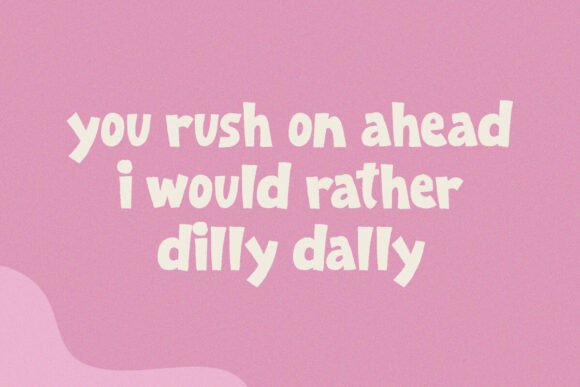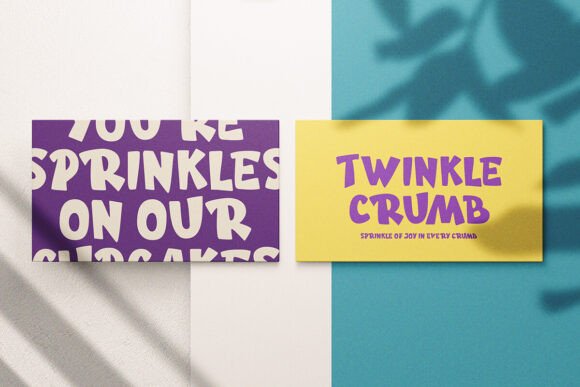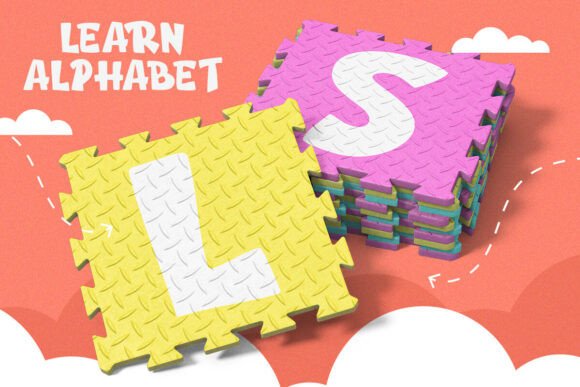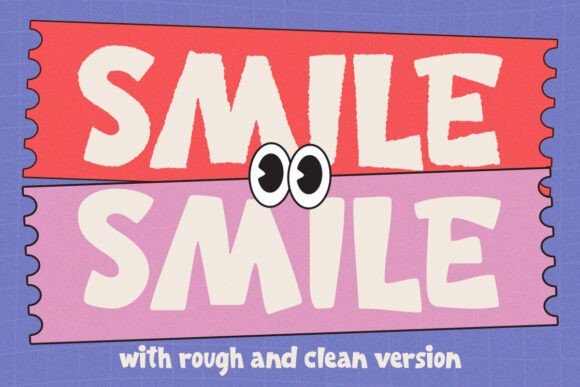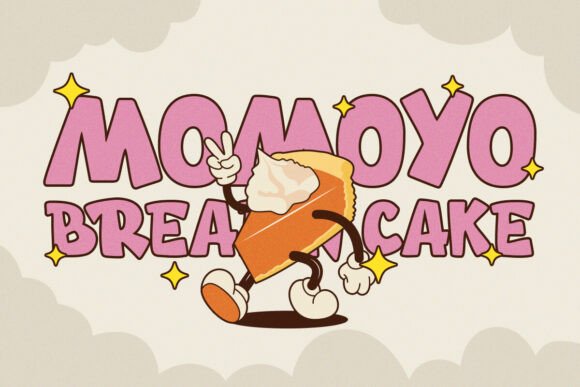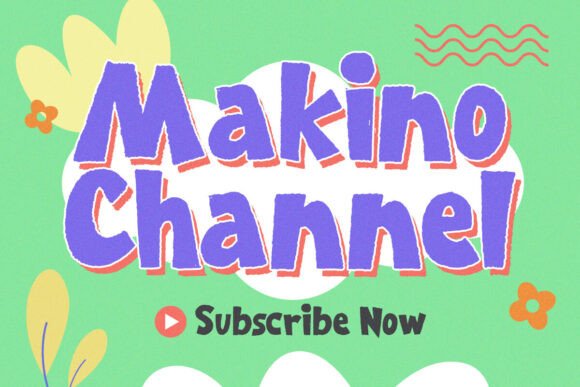
Meet Froaky Font: The Playful Ribbit-er of Design
I’ll never forget the time I was working on a whimsical children’s book illustration, and my client asked for a font that would make their story come alive. I scoured the internet, trying out font after font, but none seemed quite right. That was until I stumbled upon Froaky Font. **Ribbit!** It was love at first sight! With its bouncy, playful vibe, Froaky instantly captured the essence of the story. If you’re a designer, crafter, or creative hobbyist looking for a font that adds a dash of fun to your projects, you’re in the right place!
A Personal Review: What I Love About Froaky
So, what makes Froaky so special? Here are a few things that have won me over:
- ✨ Playful Personality: Froaky’s got a quirky charm that’s hard to resist. Its irregularities and imperfections make it feel more hand-drawn and organic.
- ✅ Versatility: Whether you’re working on kids’ illustrations, funky packaging, or social media posts, Froaky adapts to any style or theme.
- 🎨 Customization Options: With OpenType features and glyphs, you can easily swap out letters and create unique combinations to match your project’s tone.
The Not-So-Perfect: A Few Quirks
No font is perfect, and Froaky’s no exception. Here are a few things to keep in mind:
- 🤔 Legibility at Small Sizes: While Froaky shines at larger sizes, it can get a bit tricky to read at smaller sizes. Use it for headlines or titles, and consider a secondary font for body text.
- ⚠️ Limited Formality: Froaky’s playful nature means it might not be the best fit for super formal or professional projects. Stick to creative endeavors where personality is key!
The Story Behind Froaky: A Designer’s Inspiration
Ever wonder how fonts come to life? Froaky was inspired by a combination of childhood memories and a love for playful design. Imagine a font that captures the carefree spirit of hopping around a pond on a sunny day—that’s Froaky! Its creator aimed to craft a font that’s both fun and functional, perfect for creative projects that need a little extra personality.
| Q: What type of projects is Froaky best suited for? | A: Froaky shines in creative projects like kids’ illustrations, funky packaging, and social media graphics. It’s perfect for adding a playful touch! |
| Q: Does Froaky support OpenType features? | A: Absolutely! Froaky comes with OpenType features like ligatures and stylistic alternates, which you can access in compatible design software. |
And that’s a wrap! Froaky Font is your go-to companion for adding a dash of whimsy and fun to your designs. Whether you’re a seasoned designer or a creative hobbyist, Froaky’s playful personality is sure to bring your projects to life. So go ahead, give Froaky a try, and let its quirky charm ribbit its way into your heart!